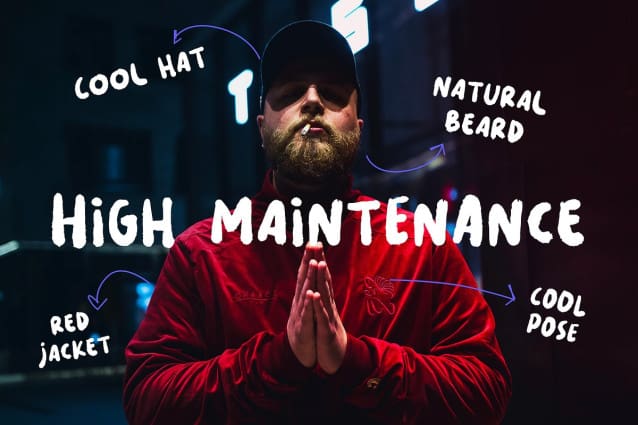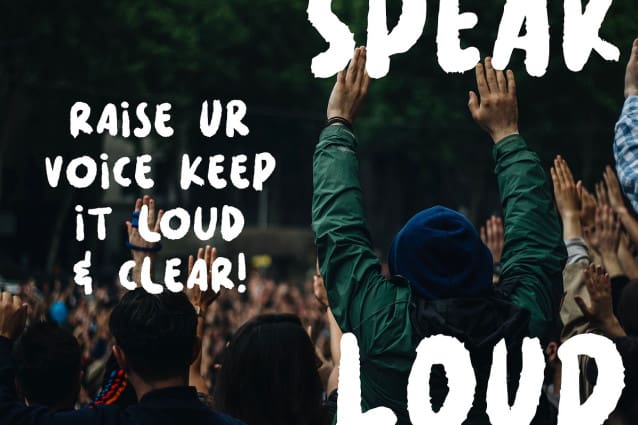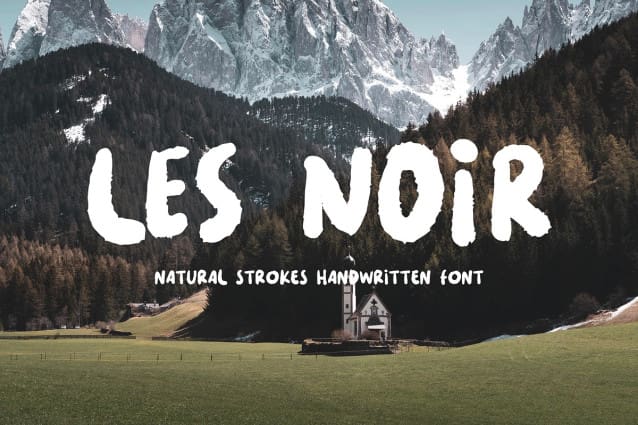
Les Noir Font
Les Noir Font a unique display font from Mocosans. This handy sans serif includes a full character, numbers, punctuation & also alternate version. Perfect for big displays, titles, posters, marketing & advertising.